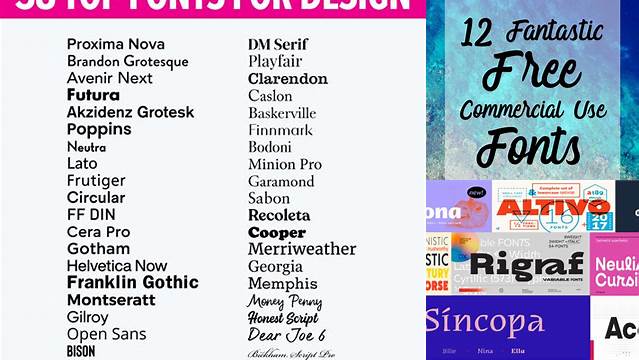
Top Free Fonts To Download In 2025: A Comprehensive Guide
Hey everyone! Are you ready to dive into the world of typography and discover the best free fonts that will be making waves in 2025? I'm super excited to share some amazing finds with you, covering everything from elegant serifs to edgy sans-serifs. This guide is designed to help you navigate the vast font landscape and find the perfect typefaces for your projects, whether you're a seasoned designer or just starting out. So, grab a coffee, get comfy, and let's explore the incredible options available for free. Finding the best free fonts can feel like searching for a needle in a haystack, but trust me, the search is worth it. With so many resources available, it's easy to get lost in the sea of options. However, by focusing on quality, versatility, and design trends, you can curate a collection of fonts that will elevate your work. Whether you're working on a website, creating social media graphics, or designing print materials, the right font can make all the difference. This guide aims to highlight fonts that not only look great but also offer excellent readability and usability across various platforms. I've done the research for you, so you can spend more time creating and less time searching. This journey will be filled with the most popular and high-quality fonts that are sure to be the favorites in 2025.
2. Top Sans-Serif Fonts for Modern Design Projects in 2025
Let's talk about sans-serif fonts! They're the workhorses of modern design, known for their clean lines and readability. In 2025, these fonts will continue to be essential for websites, apps, and various digital media. These are the fonts that communicate clarity and simplicity. I've got some fantastic recommendations, focusing on versatility, legibility, and contemporary appeal. Sans-serif fonts are perfect for headlines, body text, and user interfaces. They are timeless, flexible, and suitable for almost any project.
2.1 Exploring the Clean and Modern Appeal of Montserrat
Montserrat is a timeless sans-serif font that has been a favorite for years, and it's still going strong. Its geometric shapes and clean lines make it incredibly versatile for various design projects. It offers multiple weights and styles, making it easy to create visual hierarchy and add emphasis. Montserrat works well in both print and digital media, making it a reliable choice. Best free fonts like Montserrat are highly readable and have a contemporary feel. The font family also includes different variations, such as Montserrat Alternates, which gives you more creative options. Whether you're working on a website, a brochure, or a social media post, Montserrat can provide a polished and professional look. It's a great font for both headlines and body text.
2.2 Analyzing the Versatility and Style of Open Sans
Open Sans is another staple in the world of sans-serif fonts. It's a highly readable font with a neutral appearance, making it a great choice for long-form content and user interfaces. Best free fonts such as Open Sans are designed to be clear and legible on screens of all sizes. It's widely used by major brands and platforms because of its versatility and reliability. Open Sans comes in a wide range of weights and styles, providing flexibility for creating diverse designs. It is also available in multiple languages. The font is ideal for everything from website body text to app interfaces. It's a fantastic choice when you need a font that focuses on readability and ease of use. Open Sans is optimized for both print and digital environments. Its clean and friendly appearance makes it suitable for a wide range of audiences.
2.3 Showcasing the Contemporary Edge of Lato
If you're looking for a font with a touch of personality, check out Lato. It's a sans-serif font with a friendly and approachable design, making it great for websites, branding, and marketing materials. It has rounded letterforms, giving it a softer feel than some other sans-serif fonts. The design of Lato provides an excellent balance between functionality and aesthetics. It offers multiple weights and styles, making it suitable for both headlines and body text. Best free fonts are designed to be visually engaging while still remaining legible. Lato is a versatile choice that can adapt to various design needs. This is a great font for any design project that requires a modern and stylish look. Lato is an excellent choice if you want a font that is both stylish and easy to read. It is another one of the best free fonts that can be found.
3. Elegant Serif Fonts for Classic and Sophisticated Designs in 2025
Serif fonts bring a touch of elegance and sophistication to any design. Their classic appearance makes them ideal for projects where you want to convey a sense of tradition, authority, or refinement. These are great for branding, editorial design, and other applications where a touch of sophistication is desired. The best free fonts in this category will balance style with readability.
3.1 Delving into the Timeless Beauty of Playfair Display
Playfair Display is a high-contrast serif font with a classic look, perfect for headlines and titles. It's designed to be used in large sizes, creating a striking visual impact. This font is inspired by the work of British type foundries from the early 19th century, giving it a historical feel. Best free fonts like Playfair Display are a great choice for editorial designs, websites, and any project where you want to make a statement. Playfair Display is especially well-suited for projects that require an elegant and eye-catching design. This font works wonderfully in any designs that require elegance.
3.2 Examining the Grace and Functionality of Libre Baskerville
Libre Baskerville is a classic serif font that's designed for readability. It's a great option for body text, providing excellent legibility, especially on screens. It is based on the original Baskerville font, known for its refined appearance and clarity. Best free fonts like Libre Baskerville are an excellent choice for projects that require a balance of style and readability. The font is perfect for blogs, articles, and any project that demands easy-to-read text. Libre Baskerville is a dependable option that combines historical charm with modern functionality.
3.3 Unveiling the Refined Look of Merriweather
Merriweather is a serif font created for on-screen reading. It has a slightly condensed letterform, making it highly readable even at smaller sizes. Best free fonts like Merriweather are a great choice for websites, e-books, and other digital projects. The font has a contemporary feel, making it suitable for a wide range of applications. Merriweather is a stylish and functional choice for all your digital needs. It's a great alternative if you want something that's both stylish and legible. The font is perfect for online use, especially for body text.
4. Trendy Display Fonts for Eye-Catching Headlines in 2025
Display fonts are all about making a statement. They're designed to grab attention and add personality to your designs. In 2025, we'll see a lot of creative and bold display fonts, perfect for headlines, posters, and social media graphics. Display fonts can greatly impact the overall design. Let's see some great examples. These fonts offer a unique visual appeal, adding a distinctive touch to your projects.
4.1 Highlighting the Bold Appeal of Bebas Neue
Bebas Neue is a popular sans-serif font known for its tall, condensed letterforms. It's a great choice for headlines and titles, making them stand out. Best free fonts like Bebas Neue are impactful and easy to read. The font is also available in multiple weights, making it even more versatile. It's perfect for creating a strong visual presence in any design. Bebas Neue is an excellent font to add a bold touch to your projects.
4.2 Exploring the Playful and Approachable Style of Montserrat Alternates
Montserrat Alternates is a variation of the popular Montserrat font, offering a different set of characters. It provides unique letterforms and allows for greater creativity in your designs. Best free fonts like Montserrat Alternates are suitable for headlines and short texts, giving you a more personalized touch. This font can add a stylish feel to your design projects. It's ideal for projects where you want to stand out.
4.3 Showcasing the Modern Vibe of Poppins
Poppins is a geometric sans-serif font with a friendly and modern appearance. It's a versatile choice for various design applications. The font comes in multiple weights and styles, providing a lot of flexibility. The best free fonts like Poppins can be used on websites, branding, and social media. It's designed to be highly readable and visually appealing. It adds a touch of modernity to any project.
5. Resources and Websites for Downloading Free Fonts in 2025
Where do you find these amazing fonts? Here are some top resources for downloading the best free fonts in 2025. These websites offer a wide range of fonts, licenses, and easy-to-use interfaces. You can find a lot of good fonts there. Make sure you check out these websites to get your fonts!
5.1 Exploring Google Fonts: A Vast and Reliable Source
Google Fonts is a fantastic resource for finding free, open-source fonts. It's one of the most popular and reliable sources. Google Fonts offers a huge library of fonts, making it easy to find the perfect one for your project. All fonts are available for commercial use. The platform is simple to use and offers a great variety of styles and languages. You can easily browse and download fonts, making it a convenient option for designers. The best free fonts will be on the list of Google Fonts.
5.2 Utilizing Font Squirrel for Quality and Curated Fonts
Font Squirrel is another great option for finding free fonts. It's known for offering high-quality, well-curated fonts. They also have an excellent selection of commercial-use fonts. Font Squirrel provides a user-friendly interface. They also offer a tool for identifying fonts, which is great for finding fonts. Font Squirrel is a reliable place for finding the best free fonts.
5.3 Discovering DaFont for a Wide Variety of Styles
DaFont is a popular website with a vast collection of free fonts. They offer a wide range of styles, from classic to modern. The platform is easy to navigate. They provide a great selection of fonts, including many display fonts. You can find everything from elegant serifs to quirky display fonts. While DaFont has a large selection, always double-check the license before using any font. It's a good starting point to find some of the best free fonts.
6. Tips for Choosing the Right Font for Your Project
Choosing the right font is crucial for effective design. The goal is to find a font that complements the project and conveys the right message. Consider the project's purpose, target audience, and desired tone. Make sure it is easy to read and aligns with the overall brand identity. The best free fonts should also provide readability.
6.1 Considering Readability and Legibility in Font Selection
Readability and legibility are critical when choosing fonts. Readability is about how easy it is to read a block of text. Legibility is about how easily individual characters can be distinguished. Select fonts that are clear and easy on the eyes, especially for body text. The font should be easily read across various devices and sizes. Avoid fonts that are too ornate or difficult to understand. Pay attention to the font's spacing, weight, and style to ensure good readability. Choosing the best free fonts involves considering these factors.
6.2 Matching Font Styles to Your Project's Tone and Purpose
Your font choice should align with your project's tone and purpose. Different fonts convey different moods and messages. A serif font may be suitable for a classic or formal project. A sans-serif font may be a better choice for a modern or minimalist design. Think about your target audience and what style will resonate with them. Make sure that your font choice enhances your message, not distracts from it. The best free fonts will help create a strong brand identity.
6.3 Combining Fonts Effectively for Visual Harmony
Combining fonts can create visual interest, but it needs to be done carefully. Choose fonts that complement each other and avoid mixing too many different styles. You may want to pair a serif font with a sans-serif font or use different weights of the same font family. Make sure there is a clear hierarchy and contrast between fonts. The combination of fonts should enhance readability and visual appeal. Avoid mixing fonts that are too similar, as this can create a cluttered look. The best free fonts can create a strong design system.
7. Staying Updated with Font Trends in 2025
The world of typography is always evolving. Stay informed about current trends to keep your designs fresh and relevant. Follow design blogs, social media accounts, and font-related websites. Be aware of new font releases and emerging styles. Experiment with different fonts and combinations to find what works best for your projects. Check the best free fonts lists to stay updated.
7.1 Following Design Blogs and Websites for Font Inspiration
Design blogs and websites are great sources of inspiration. Many blogs offer articles on typography trends and new font releases. Some design blogs offer the best free fonts that have just been released. These resources provide insights into what's popular and what's trending. Following these blogs can help you stay informed about the latest design trends. They can also guide you toward new and innovative fonts. Use these resources to get creative and create new designs.
7.2 Exploring Social Media for Typography Inspiration
Social media platforms are great places to find typography inspiration. Designers and typographers share their work, showcasing different font combinations and designs. Explore platforms like Instagram and Pinterest to discover new font styles and design techniques. Searching for the best free fonts can be made easier through social media, as designers share what they use. You can follow hashtags such as #typography and #fontdesign to find relevant content. Social media is a great tool for connecting with other designers.
7.3 Keeping an Eye on Emerging Font Styles and Innovations
The font industry is constantly innovating. Stay curious about new font styles and innovative designs. New fonts are released frequently, so keep an eye out. Look for new and unique font designs to make your project stand out. Consider trying out new variations that may be released in 2025. Always be on the lookout for new and creative approaches to typography. Find the best free fonts to keep your design style up-to-date.
8. Best Practices for Using Free Fonts in Commercial Projects
Using free fonts in commercial projects requires careful consideration of licensing and usage rights. Ensure that you have the correct licenses. Always comply with the terms of the license. Be mindful of how you incorporate fonts into your commercial work. Make sure that the font contributes to your design. The best free fonts must be used correctly in commercial settings.
8.1 Verifying Font Licenses for Commercial Use
Always check the font's license to confirm it allows commercial use. Carefully review the license terms to understand any limitations or restrictions. Most licenses require attribution. Some licenses may require you to give credit to the font designer. Make sure to respect the intellectual property rights of the font designers. Check the license every time, as the license can change. The best free fonts are always subject to license terms.
8.2 Incorporating Fonts Ethically and Responsibly
Use fonts in a way that enhances your design. Avoid using fonts in ways that could be considered unethical. Always ensure your font choices align with your brand identity. Choose fonts that support your design goals. Be respectful of the font designers and their work. Use the best free fonts responsibly.
8.3 Customizing and Modifying Fonts within License Guidelines
If the license allows it, you may customize or modify fonts. You can often make small adjustments without violating the license. Consider altering the font's weight, size, or spacing to fit your design. Always comply with the license terms related to modification. Use the best free fonts and customize them when you want.
9. The Future of Free Fonts: Predictions and Trends for 2025
What can we expect in the future of free fonts? The font landscape is continually changing. Some trends are likely to shape font design and usage in 2025. Expect more innovative designs. The best free fonts may incorporate new and interesting concepts.
9.1 Anticipating Emerging Design Trends and Styles
Keep an eye on emerging design trends and styles. Expect new geometric sans-serif fonts. Expect new serifs with contemporary features. Look for fonts that combine both functionality and creativity. Look for display fonts that have distinct characters. The best free fonts will be adaptable and versatile.
9.2 The Role of Variable Fonts in Future Design
Variable fonts are set to become more prominent. These fonts allow users to adjust the weight, width, and other properties. Expect variable fonts to offer greater flexibility and customization. The best free fonts will probably be variable fonts. Variable fonts may streamline workflows for designers.
9.3 The Impact of AI and Automation on Font Design
AI and automation tools may play a greater role in font design. Tools may assist in generating new font designs. Expect AI to help in improving existing fonts. Automation may speed up design processes. AI may also help optimize fonts. The best free fonts may become more accessible.
10. Conclusion: Embracing the World of Free Fonts in 2025